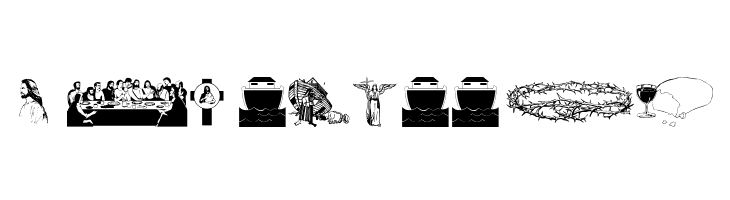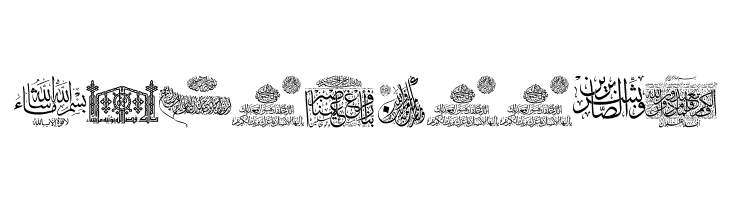
Daniel Werneck's Handwriting Font
Font by Daniel Werneck
A bold, expressive handwritten font with a casual, personal style.
Tagalog Doctrina 1593 Font
An ancient, flowing script with elegant curves and decorative elements.
SilexStencil-Basic Font
A bold, geometric stencil font with a modern and industrial aesthetic.
ReligiousSymbols Font
Font by Manfred Klein - manfred-klein.ina-mar.com
Highly illustrative font composed of religious and spiritual icon symbols.
Religious 1 Font
A religious-themed dingbat font with symbolic illustrations.
Religious 2 Font
Digital Magic - www.graphicdesignplus.com/helen/digitalmagic/
Religious pictogram dingbat font with bold, high-contrast icons.
Religious Santa Font
Font by Scratchones
A playful, bold font with rounded edges and a whimsical style.